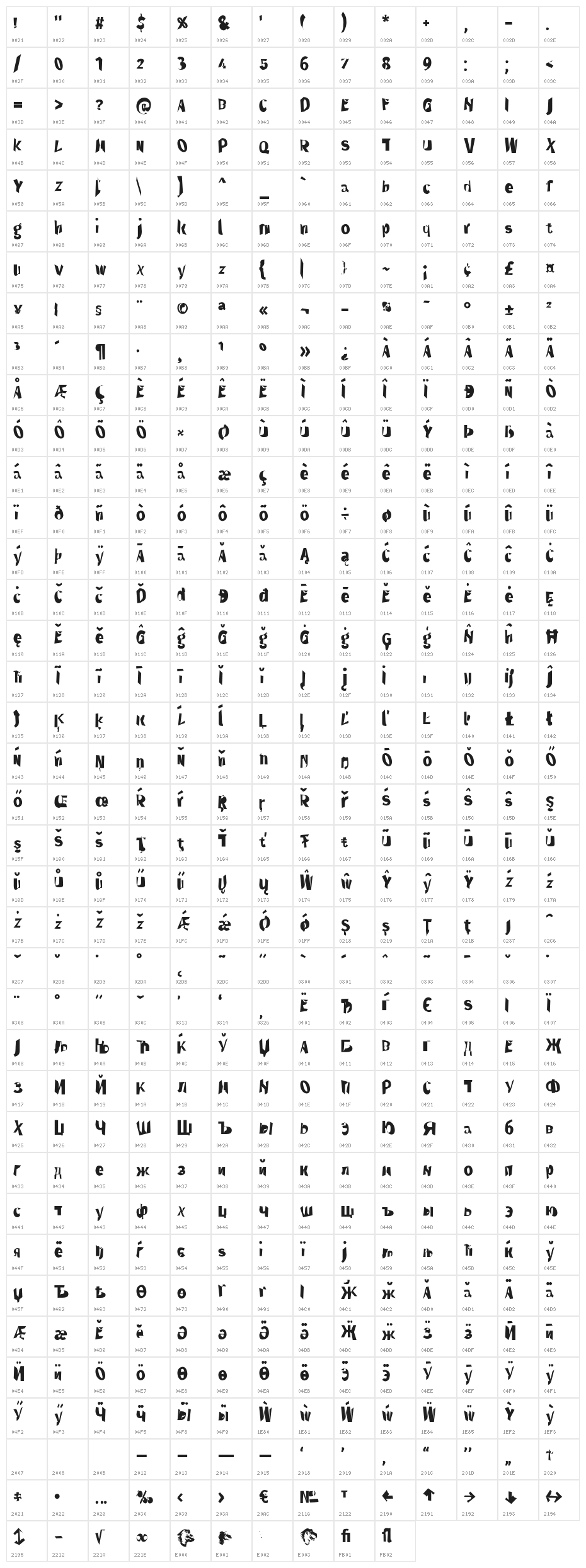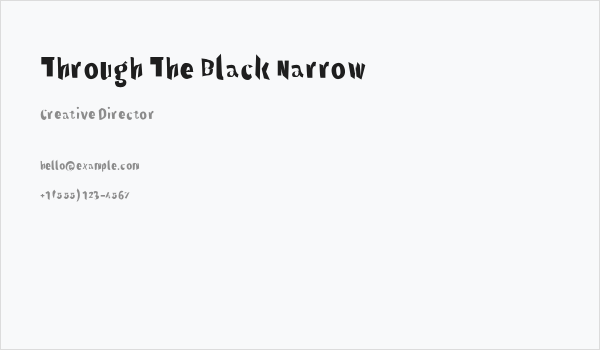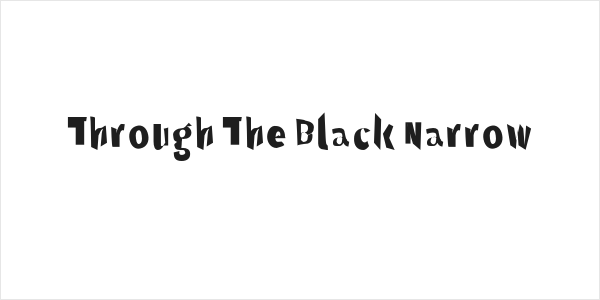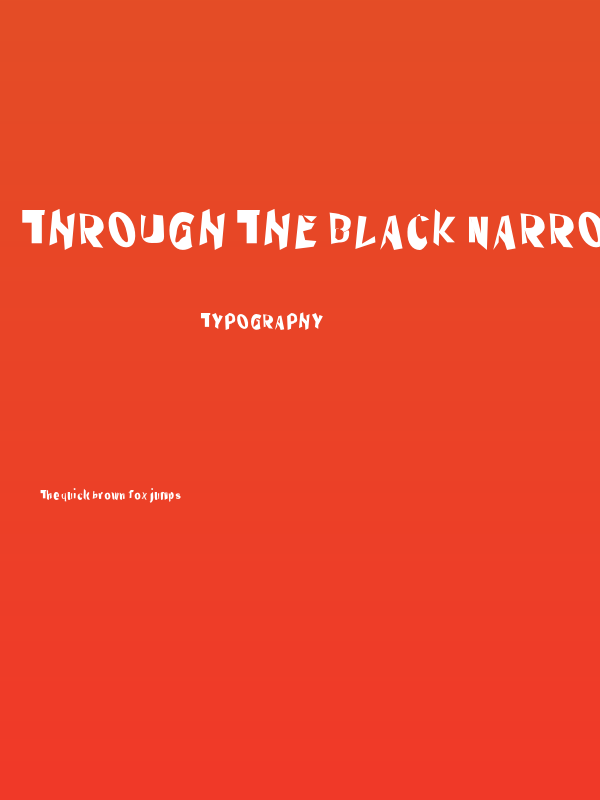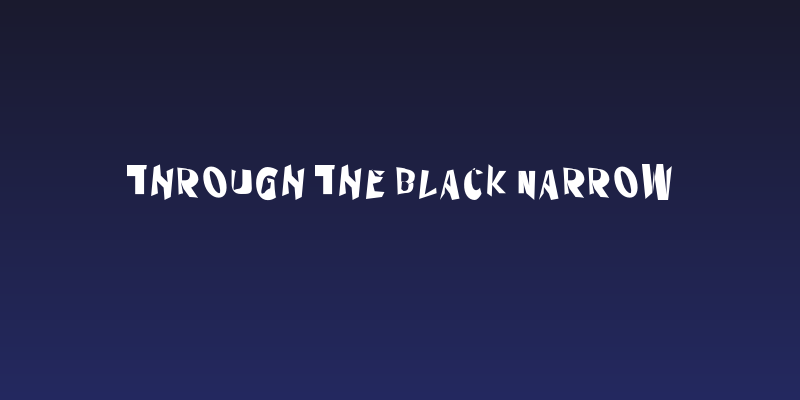
Through The Black Narrow Font
Through The Black Narrow Description
This font features a unique and edgy design with sharp, angular cuts and irregular shapes, giving it a dynamic and rebellious appearance. The letters are bold and slightly distorted, creating a sense of movement and energy. The uppercase and lowercase characters maintain a consistent style, while the numbers and special characters complement the overall aesthetic. This font is ideal for projects that require a bold statement or a creative, unconventional look.
| Overall Style | Modern, Edgy |
| Proposed Projects | Album covers, posters, branding for edgy or alternative brands, and creative digital artwork. |